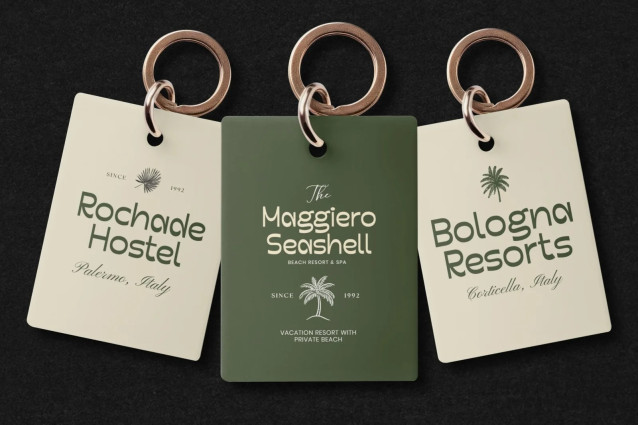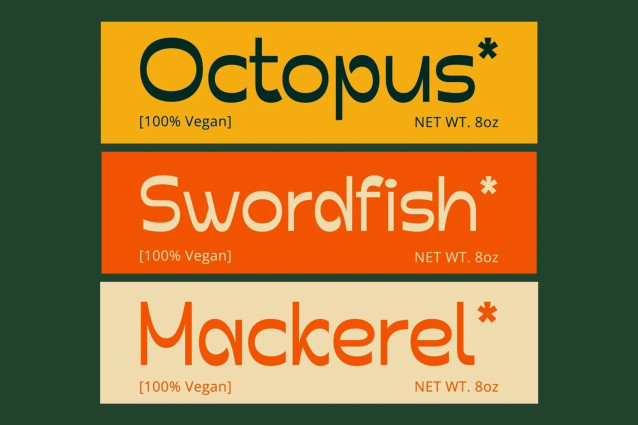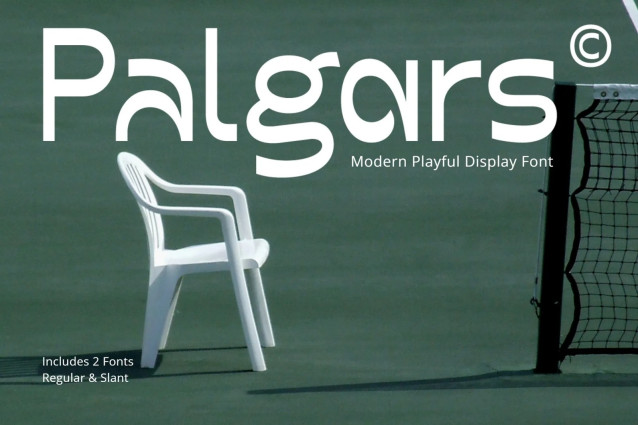
Palgars Font
Palgars Font, a modern and playful display font designed to inject personality and charm into your projects. Palgars is built on a clean sans-serif foundation, making it incredibly versatile, but it breaks the mold with its unique, flowing letterforms that are full of character. The quirky curves and friendly feel make it instantly memorable and approachable.
Whether you’re crafting a new logo, designing eye-catching headlines, or creating stunning social media posts, Palgars is your perfect partner. Its clean yet distinctive style makes it ideal for branding, packaging, posters, and so much more.